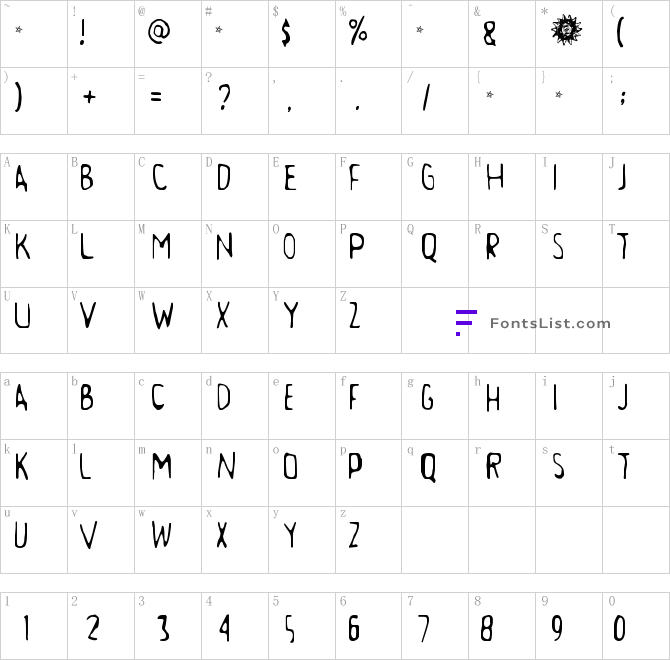
- Font Name:Aamunkoi
Aamunkoi.ttf is a very beautiful artistic font, Aamunkoi.ttf is widely used in the design and printing of various books and pictures,Aamunkoi.ttf has a strong visual impact,Aamunkoi.ttf is a commonly used font in newspapers, magazines and books, and is used in posters, e-commerce Poster design, store design, logo design, font design and other fields.Aamunkoi.